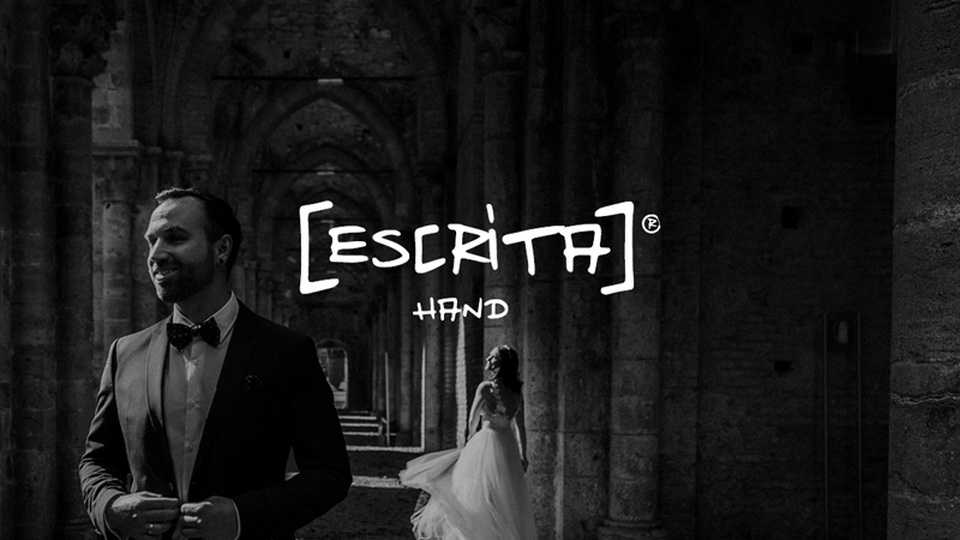
Escrita Hand Font › Fontesk – Download Grátis
Download Escrita Hand font, a casual hand lettered display typeface with a lot of personality. Escrita Hand font is perfect for cards, crafts, notes, quotes, social media and other creative projects.
Designer: Jan Hoberg